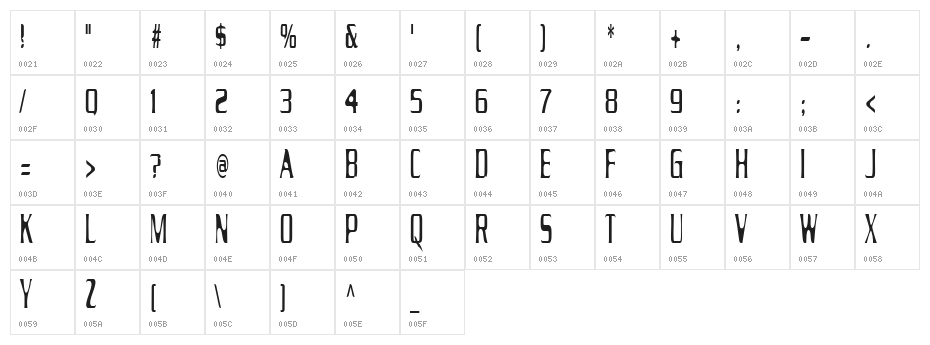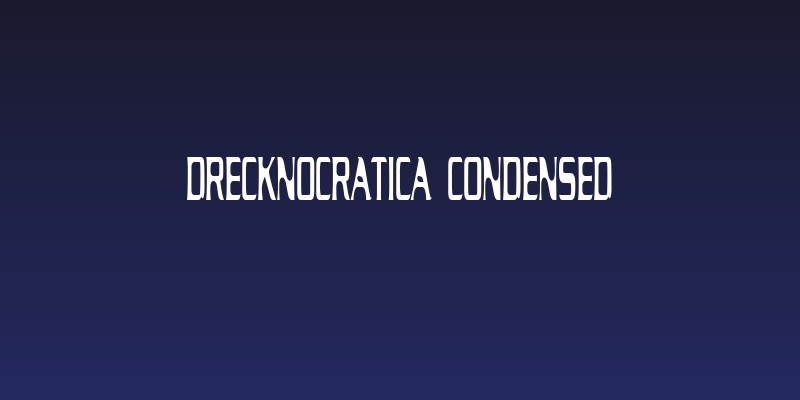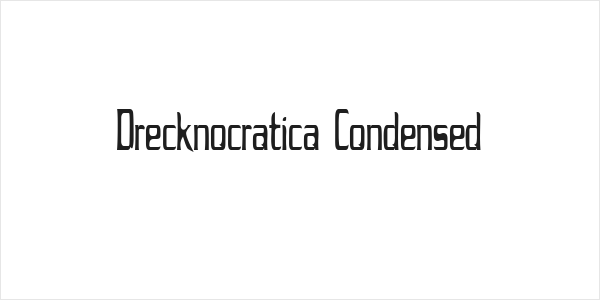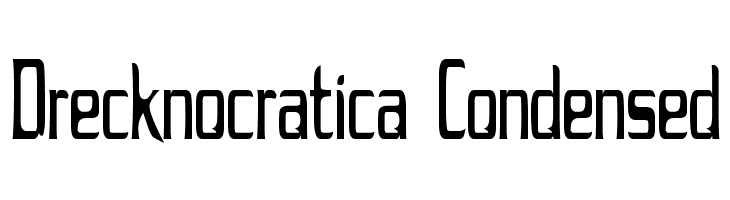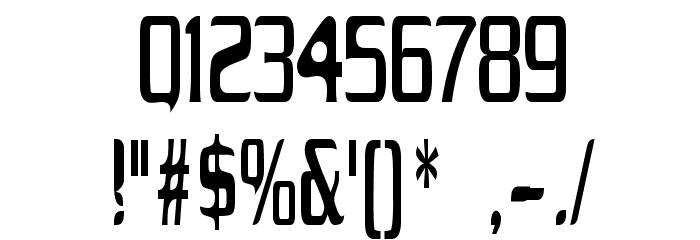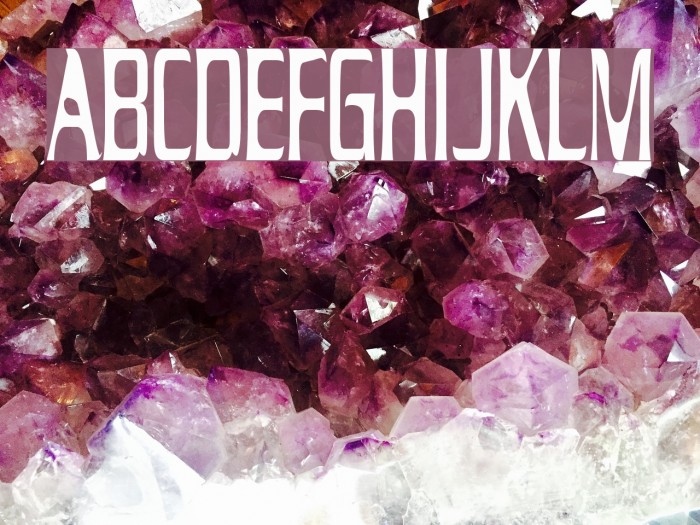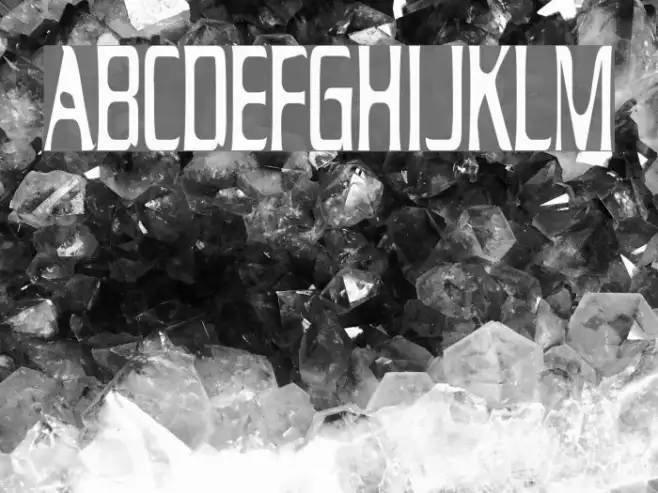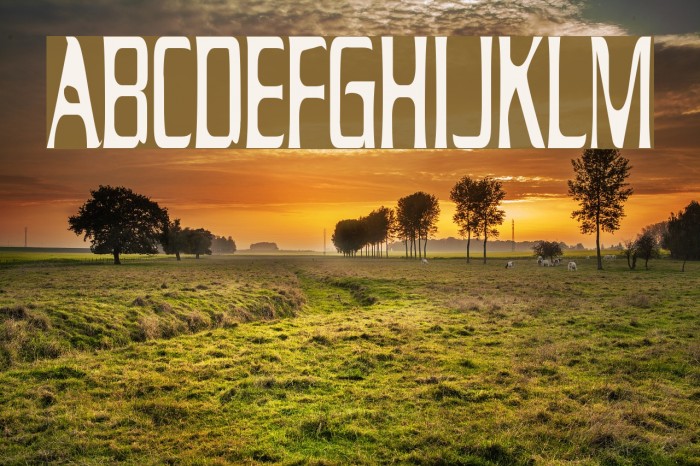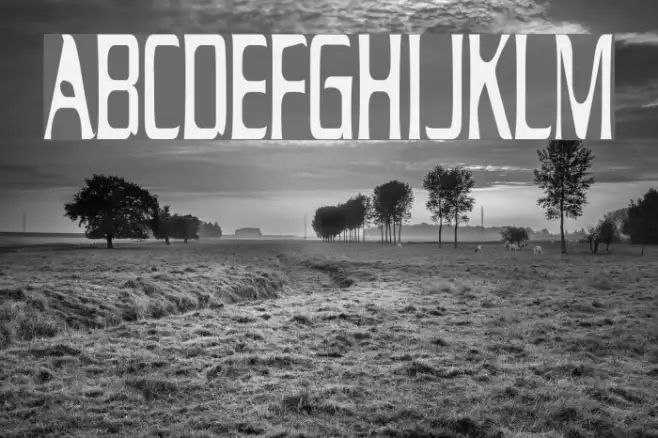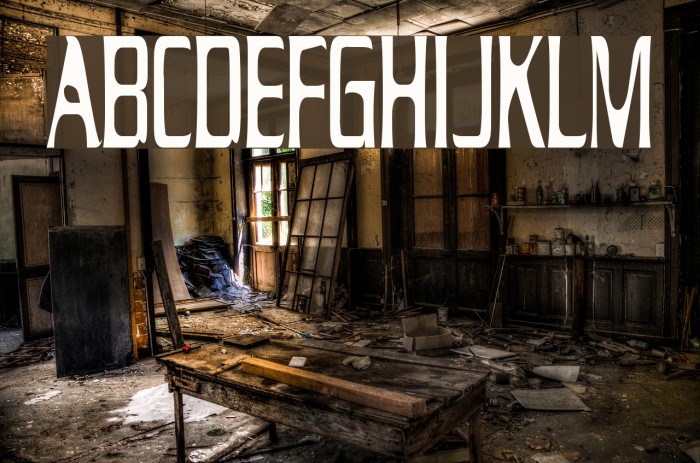
Drecknocratica Condensed Font
Drecknocratica Condensed Description
This font features a unique and modern design with condensed letterforms that create a striking visual impact. The uppercase letters are bold and slightly elongated, giving a sense of height and elegance. The lowercase letters maintain a consistent style, with smooth curves and sharp edges that enhance readability. Numbers are distinct and align well with the overall aesthetic, while special characters are crafted to match the font's distinctive style. The font's condensed nature makes it ideal for creating eye-catching headlines and titles, where space is limited but impact is essential.